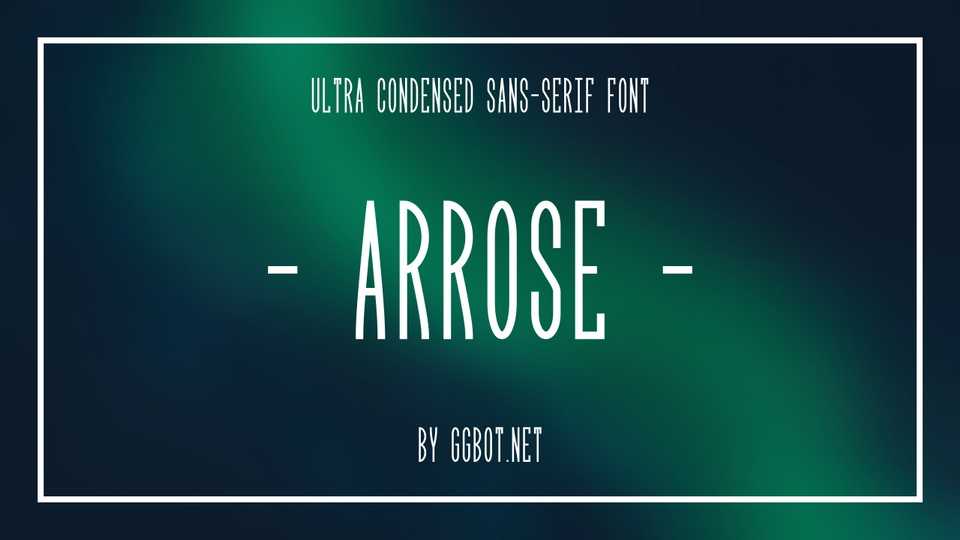
Download Arrose font, an ultra condensed sans serif typeface. With its tall and narrow look Arrose font is great for movie titles, posters and other display purposes.